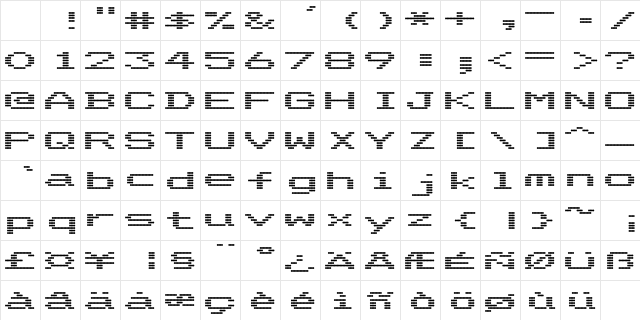
Complete Dotrice Expanded Bold glyph index. Displaying only characters natively supported by Dotrice Expanded Bold font.
Dotrice Expanded is rooted in pixel-grid construction, making it a natural fit for game UI, retro computing aesthetics, and digital nostalgia projects.
Pro Tip: Use Dotrice Expanded at sizes that align with its pixel grid for the sharpest rendering - scaling to non-integer multiples can introduce unwanted blur.